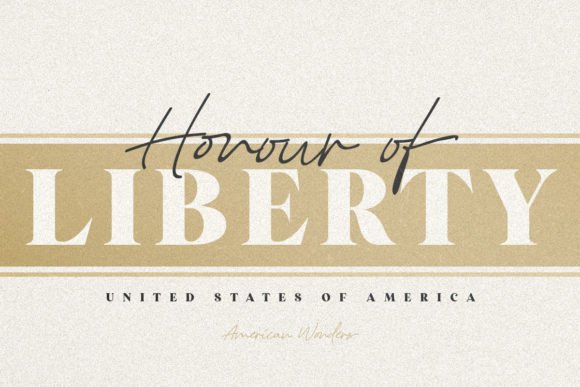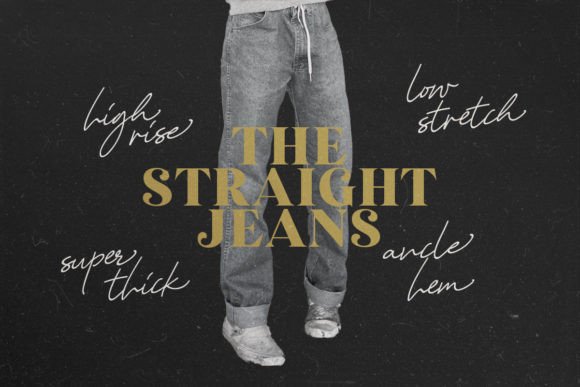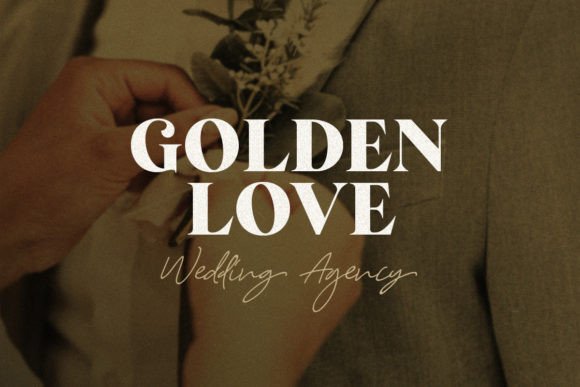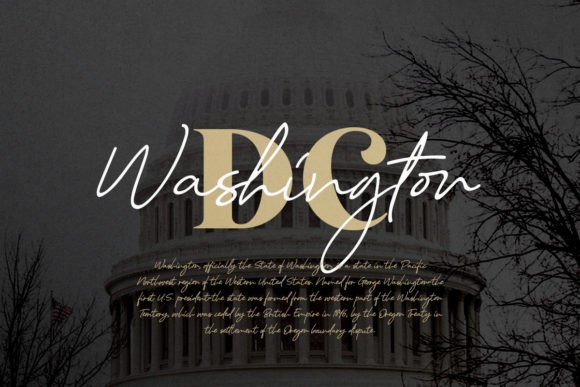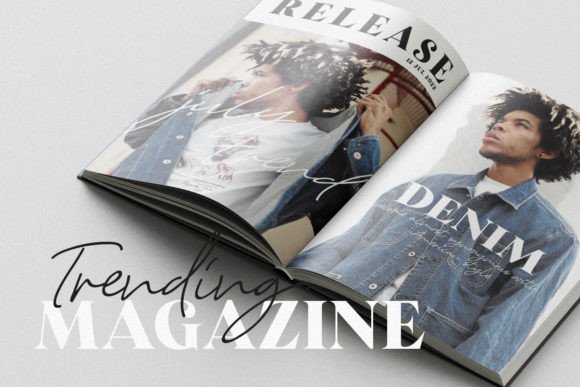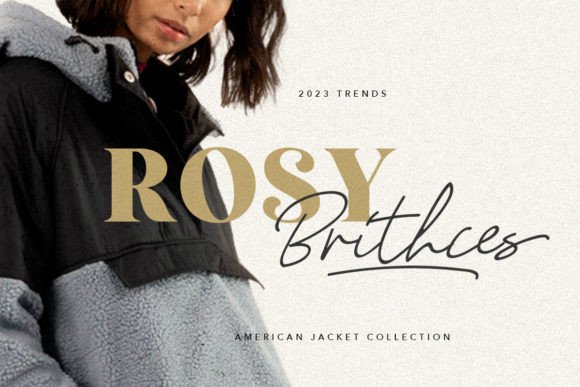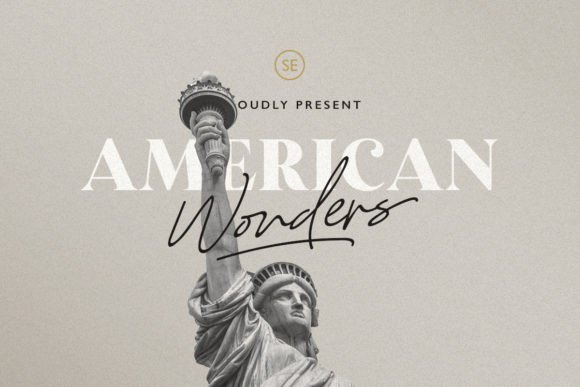
The American Wonders Font: A Designer’s Dream Come True
I’ll never forget the time I was working on a project for a client who wanted a font that was both bold and elegant. I had spent hours scouring the internet for the perfect font, but nothing seemed to fit the bill. That was until I stumbled upon the American Wonders font package. It was like a breath of fresh air – a signature script and a bold serif that seemed tailor-made for my project. In this article, I’ll share my experience with the American Wonders font, and explore its features, uses, and alternatives.
- ✨ Versatility: The American Wonders font package includes two fonts – a signature script and a bold serif. This means you can use them for a wide range of projects, from elegant invitations to bold posters.
- 💥 Impact: The bold serif font is strong and powerful, while the signature script is soft and authentic. This makes them perfect for creating visual interest and hierarchy in your designs.
While the American Wonders font is amazing, there are a few things to keep in mind. 🤔 For example, the signature script font can be a bit tricky to read at small sizes, so it’s best used for headlines or titles. ⚠️ Additionally, the font doesn’t have a huge range of weights, so you may need to get creative if you want to use it for body text.
- Experiment with the OpenType features, such as glyphs and stylistic alternates, to add visual interest to your design.
The Story Behind American Wonders
The American Wonders font was designed by a team of typographers who wanted to create a font that was both bold and elegant. They drew inspiration from classic American typography, as well as modern design trends. The result is a font that’s both versatile and visually striking.
A: The American Wonders font is perfect for a wide range of projects, from elegant invitations to bold posters. It’s also great for branding, packaging, and digital design.
A: The American Wonders font is designed to be easy to read, especially at larger sizes. However, the signature script font can be a bit tricky to read at small sizes, so it’s best used for headlines or titles.